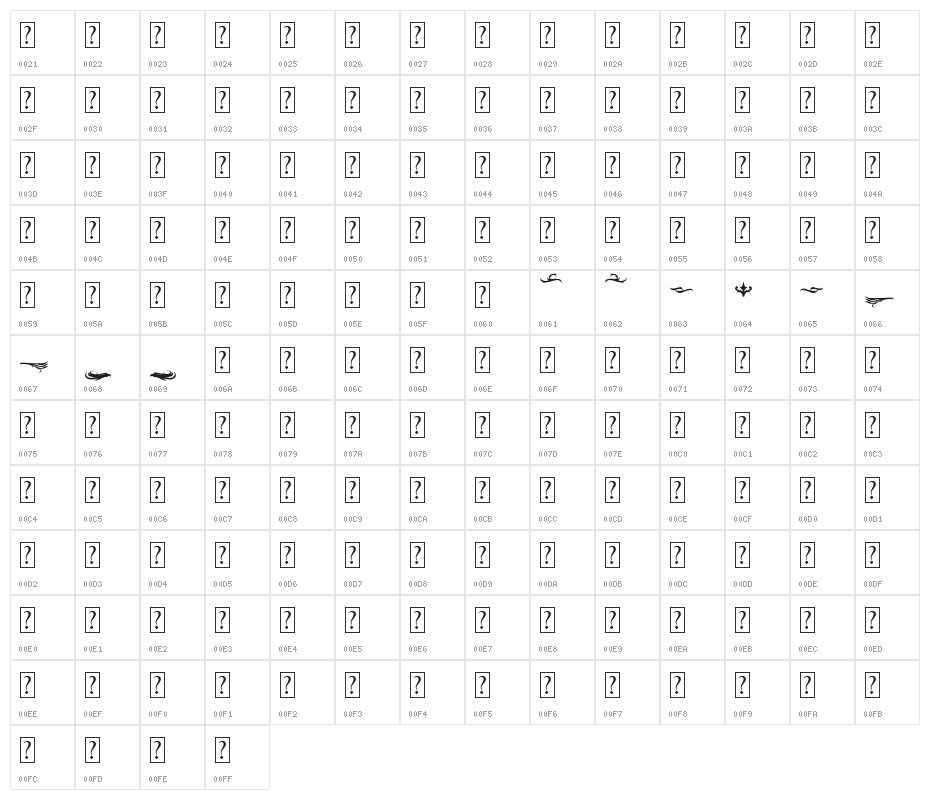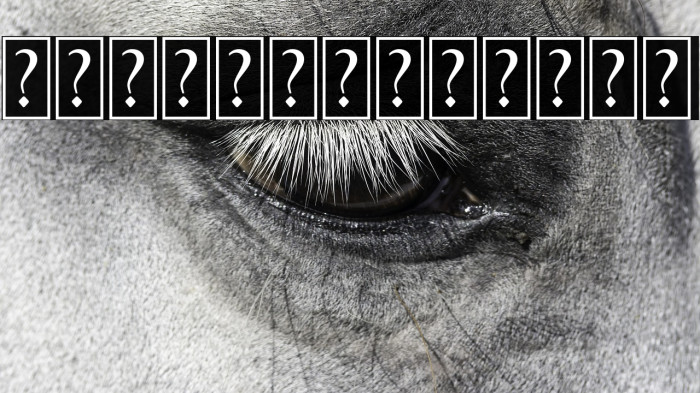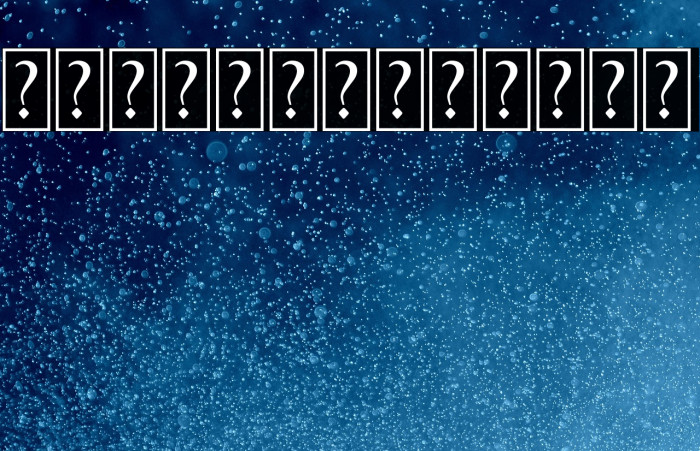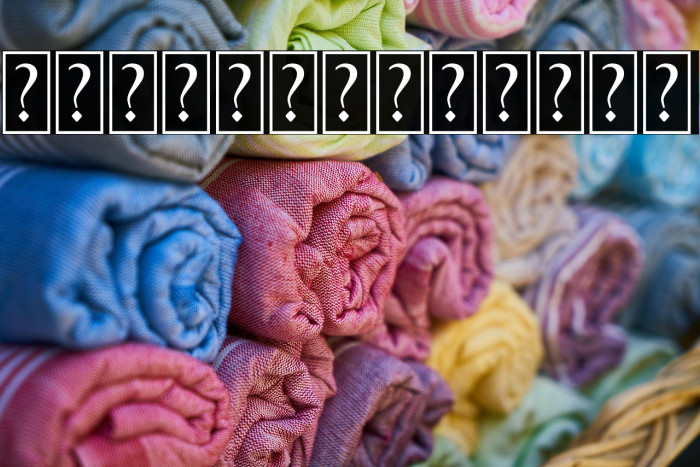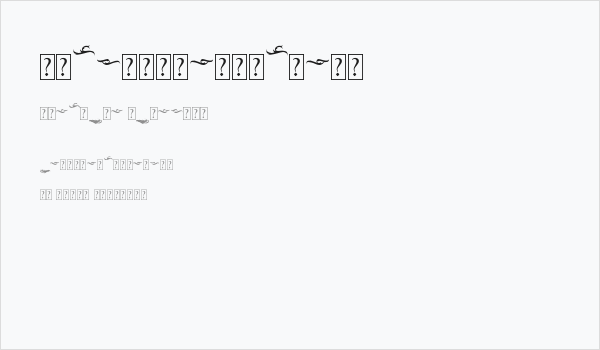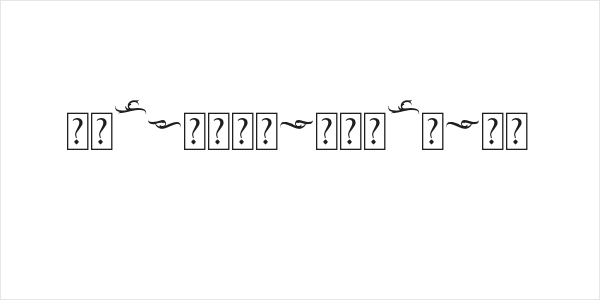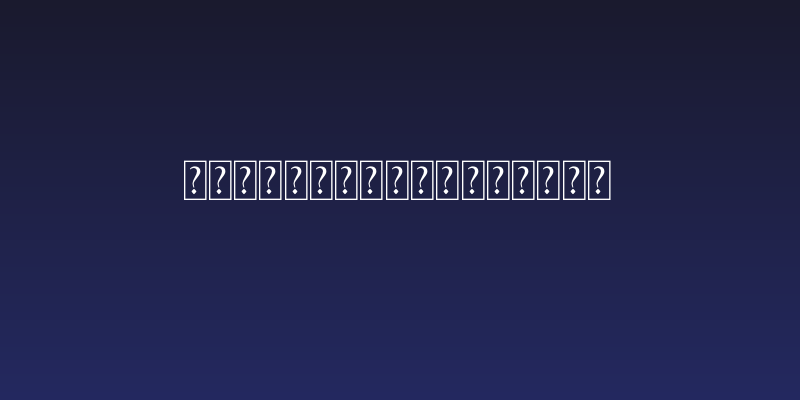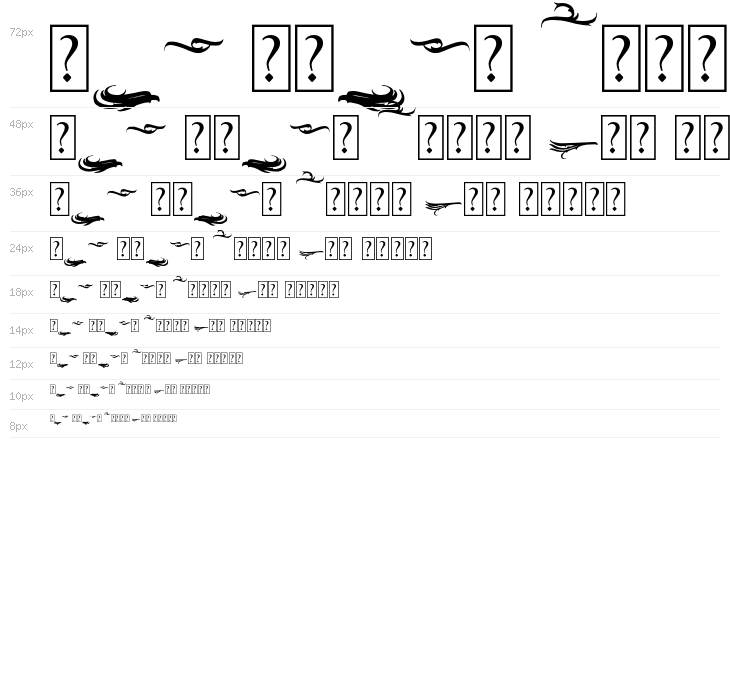
BlackroseOrnament Font
BlackroseOrnament Description
This is not a valid font. The image contains ornamental designs and decorative elements rather than a complete set of alphanumeric characters. These elements are likely intended for embellishment purposes rather than functional typography. The designs are intricate and feature flourishes and curves, suitable for adding decorative touches to various projects.
| Use Case | Decorative elements for design projects. |
| Proposed Projects | These ornaments can be used in graphic design projects, invitations, certificates, or any creative work that requires decorative embellishments. |